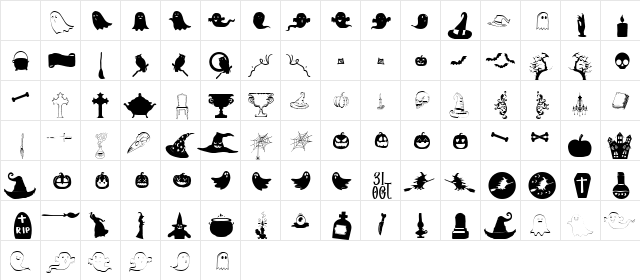
Halloween Dreams Doodles Regular
Designer: Muhamad Fikry Nuralif
Design Context for Halloween Dreams Doodles
Halloween Dreams Doodles is a composed and adaptable typeface that performs quietly and consistently across a wide range of design contexts.